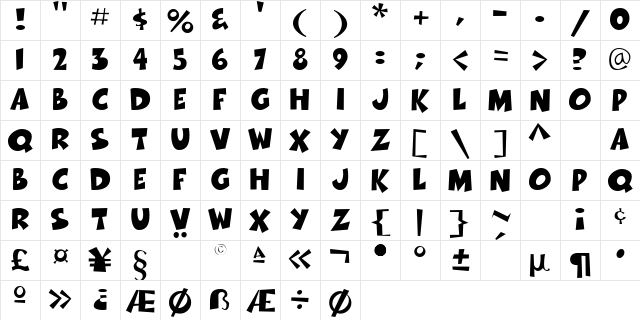
Thwack Regular Free Font
Thwack Regular
Design Context for Thwack
Thwack is a composed and adaptable typeface that performs quietly and consistently across a wide range of design contexts.